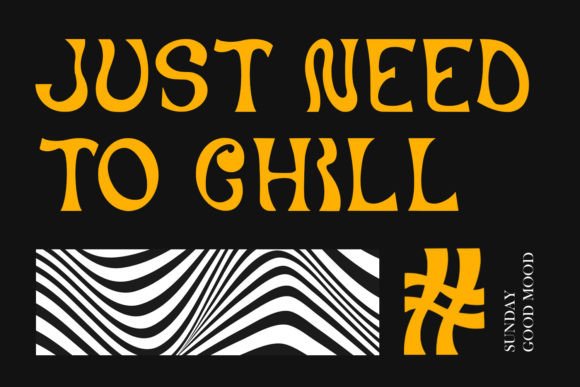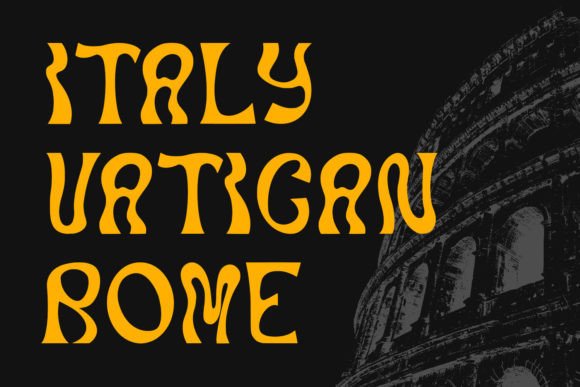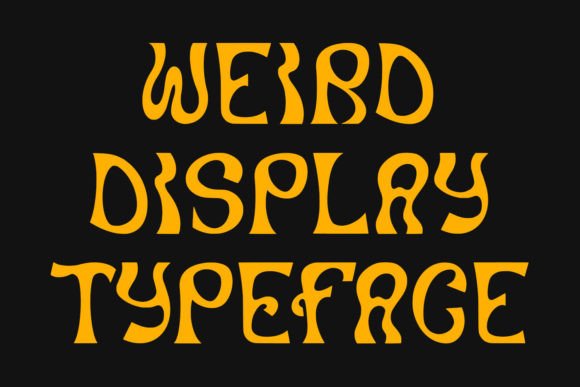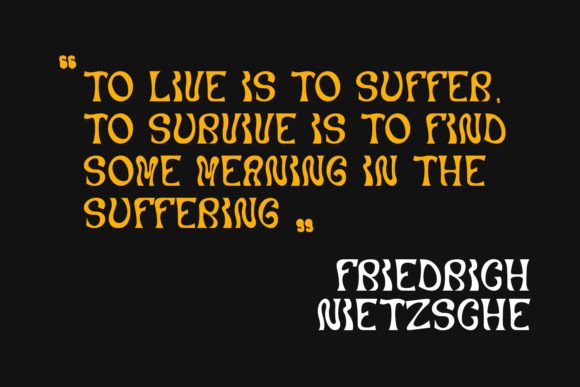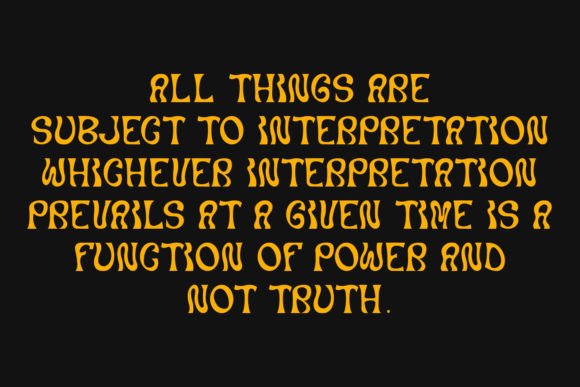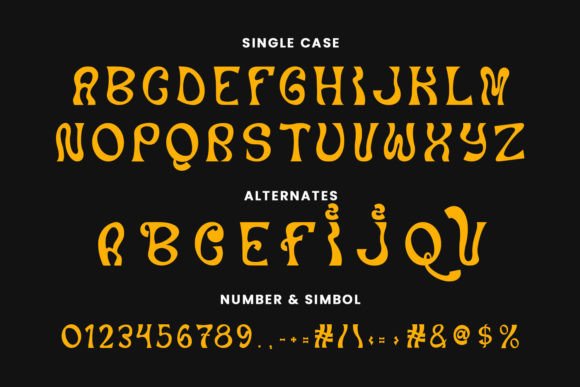
Introduction to Qecabiv Font
Qecabiv experimental display font.
Bold stroke, fun character with a bit of ligatures and alternates To give you an extra creative work.